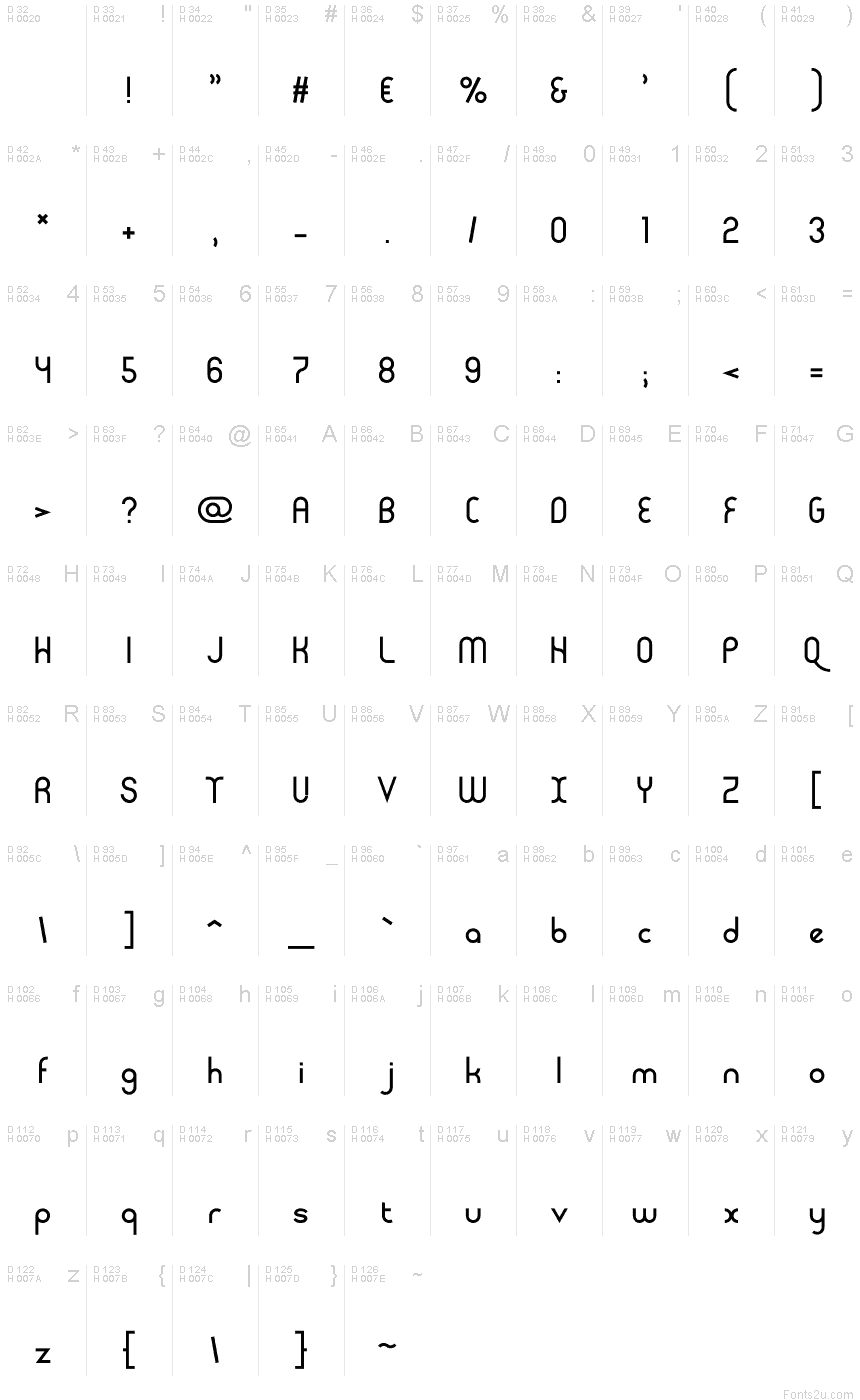
curls
curls font is a free decorative sans serif font with a sleek, elastic feel. Its charm comes from the way smooth, chunky curves meet sudden vertical strokes, giving words a soft, logo-ready rhythm that feels both playful and pared back.
Using curls works beautifully for boutique logos, beauty packaging, music covers, fashion tags, poster headlines, social graphics, and app branding where you want a rounded, modern voice. This free font holds up best at larger sizes, and it pairs nicely with a plain neo-grotesk sans for body text so its curved personality stays front and center.